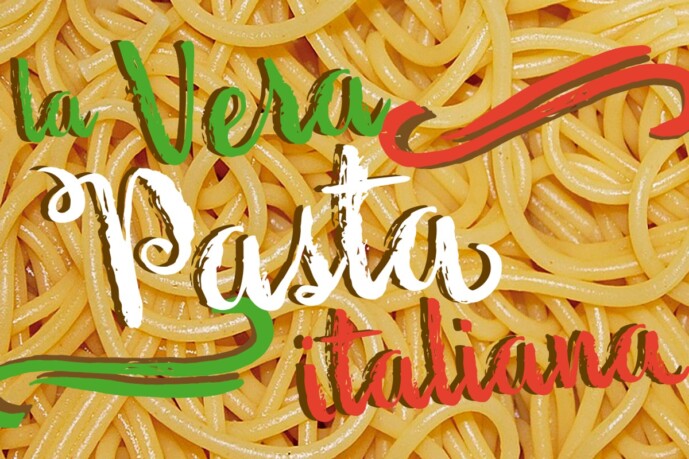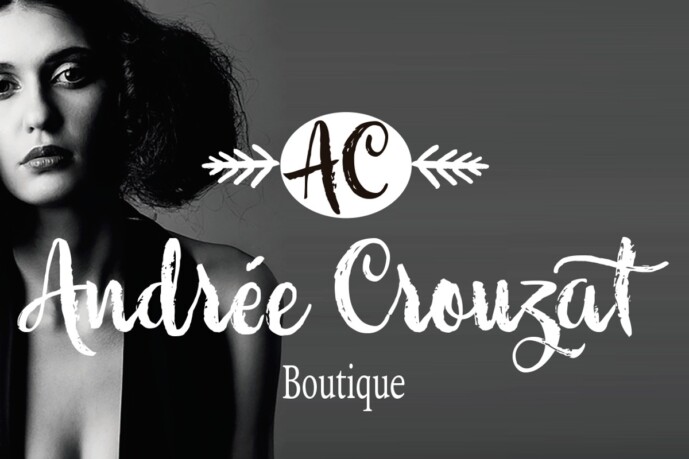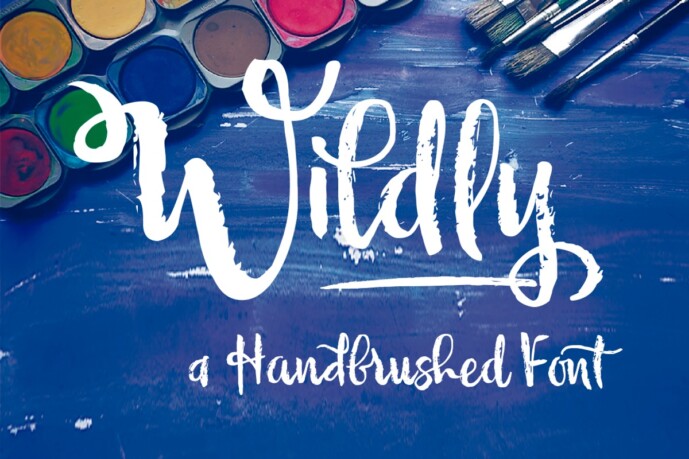
Wildly Font
Wildly Font is a casual, modern and hand brushed font. I’ve designed Wildly carefully with the intention to preserve in its glyphs the original tell-tale dry brush imperfections and a bouncy baseline for a more personalized effect even more authentic. As an exclusively Open Type release, with 622 glyphs and 50 ornaments, it has several special alternatives for all letters with lots of possibility an an infinity of combinations. There are plenty of options to allow you to create something unique and special: standard and discretionary ligatures, swashes and stylistics alternates for each letter. These lovely fonts have already an extended character set to support Central and Eastern as well as Western European languages. This will help your creativity and make it easier to make the impressive and elegant typographic work. This font is a perfect choice for greeting cards, posters, labels, t-shirt design, logos, and more. Wildly was designed to make your project more beautiful and attractive! To activate the optional glyphs you may click on buttons in any OpenType savvy program or manually choose the characters from Glyph Palette. Enjoy it!